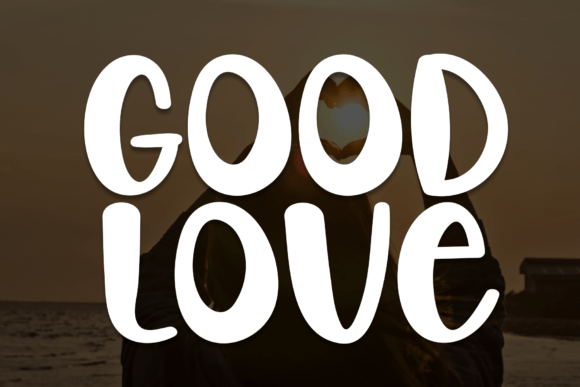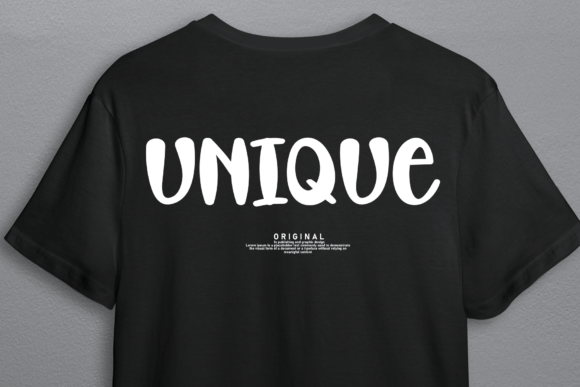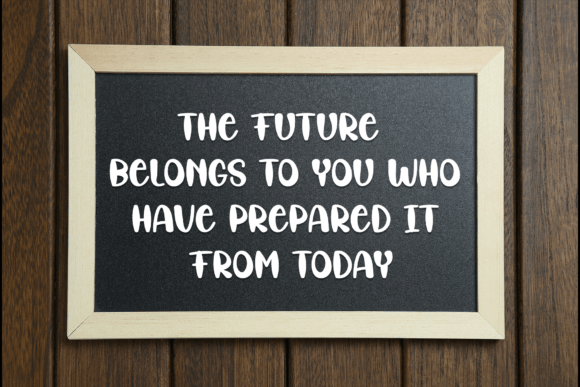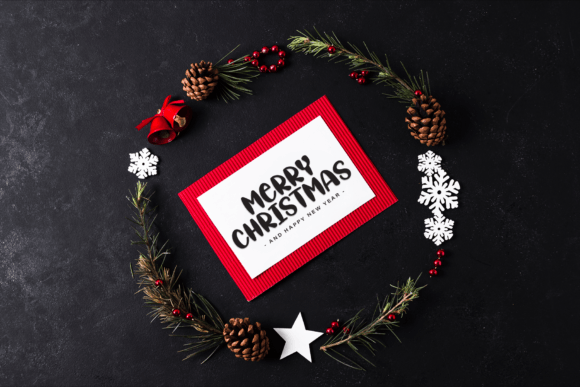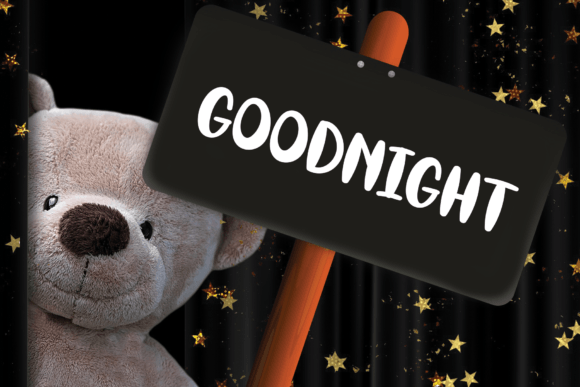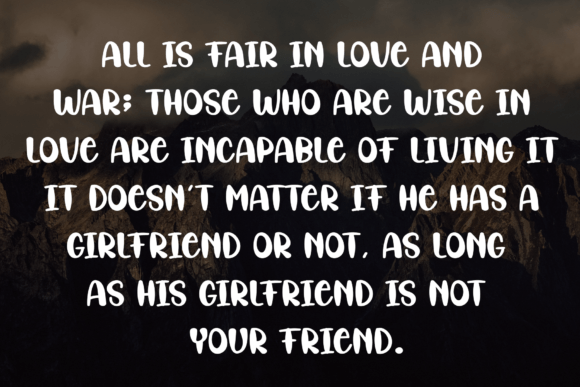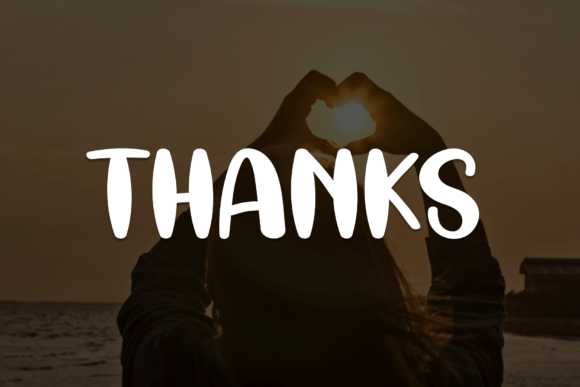
The Perfect Font for a Love Story
Have you ever been brainstorming ideas for a wedding invitation or a special card, only to find yourself stuck in a sea of generic fonts? It’s that moment when you wish you had the perfect tool to express your creativity and make your design truly special. Well, we’ve got some good news for you! Introducing the Good Love Font, a sweet and friendly handwritten display font that’s sure to bring a smile to your face and a touch of whimsy to your design.
This adorable font is not just a pretty face – it’s also a valuable asset for designers looking to add a fun and playful touch to their projects. With its cute and charming aesthetic, the Good Love Font is perfect for writing wedding invitations, cards, or any other design that needs a little extra love. Whether you’re a seasoned pro or a design newbie, this font is sure to become your new go-to for all things love and romance.
Key Features of Good Love Font
- Font Family: Good Love Font is a unique script font that combines elegance and playfulness, perfect for romantic and creative projects.
- Font Size: The font comes in a single weight, making it ideal for use in various font sizes, from 8pt to 24pt.
- Resolution: Designed for high-resolution displays, Good Love Font is optimized for use at 300 DPI and above.
- Unique Characteristics: The font features swashes, ligatures, and contextual alternates, adding a touch of personality to your designs.
- Language Support: Good Love Font supports a wide range of languages, including Latin, Greek, and Cyrillic scripts.
Good Love Font Review
Overall, I’m impressed with the Good Love Font, but it’s not without its flaws. Here’s my honest take on this font.
- Unique and playful style – The Good Love Font has a distinct, whimsical feel that’s perfect for creating eye-catching designs.
- Good legibility – Despite its playful nature, the font is still easy to read, even at smaller sizes.
- Wide range of weights – The font comes in multiple weights, making it versatile for various design applications.
- Not suitable for body text – Due to its playful style, the Good Love Font isn’t ideal for large blocks of text.
- Limited language support – The font may not include all the necessary glyphs for certain languages.
Overall, the Good Love Font is a great choice for designs where you want to add a touch of whimsy and personality. Just be mindful of its limitations, and use it sparingly in body text or when working with languages that have limited support.
Tips for Getting the Most Out of the Good Love Font
Experiment with different font sizes, colors, and styles to create a unique look.
Combine the Good Love Font with other fonts to create a visually appealing design.
Use the Good Love Font for wedding invitations, love quotes, or romantic-themed designs.
Apply the Good Love Font to social media graphics, posters, or flyers to add a touch of romance.